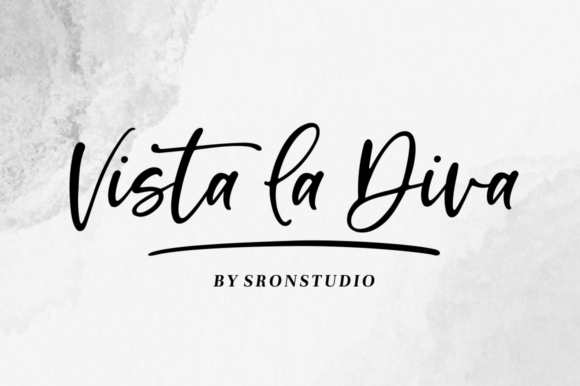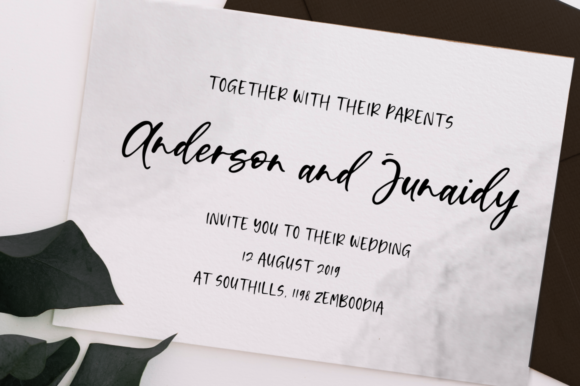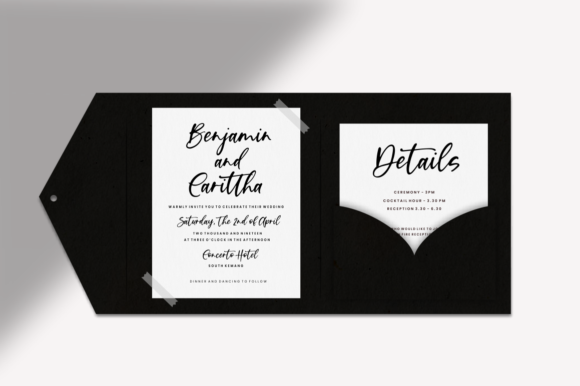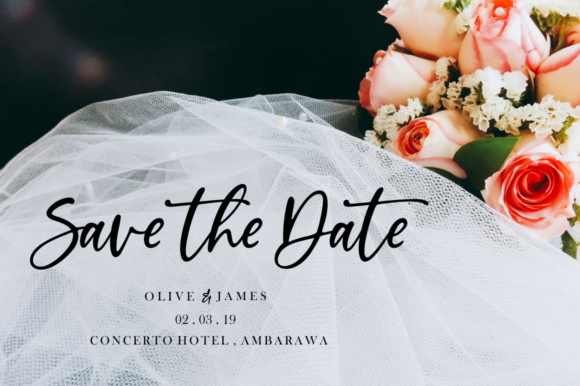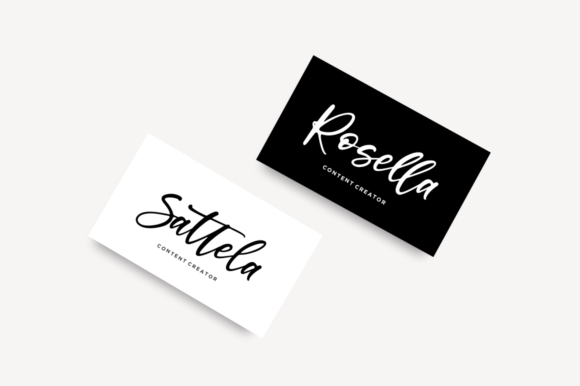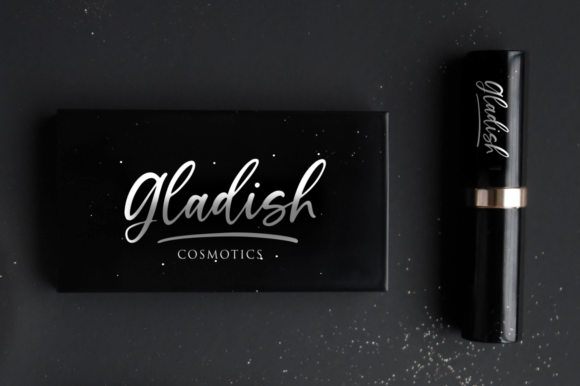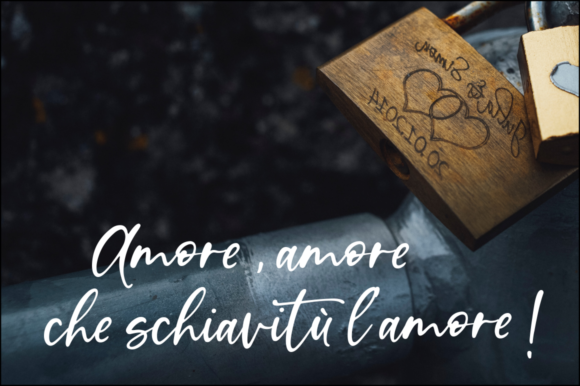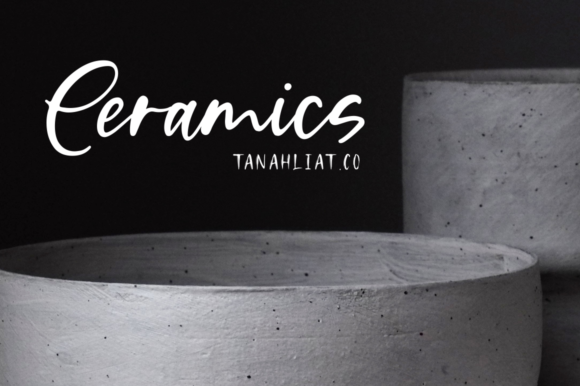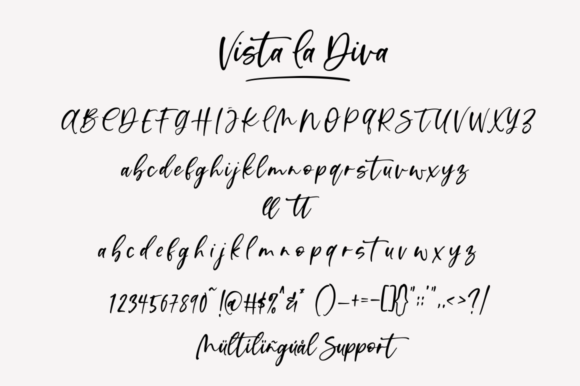
Vista La Diva Font
About Vista La Diva Font
Vista La Diva is a beautiful script font that is perfect for many different projects. It will add a romantic touch to any crafting project.